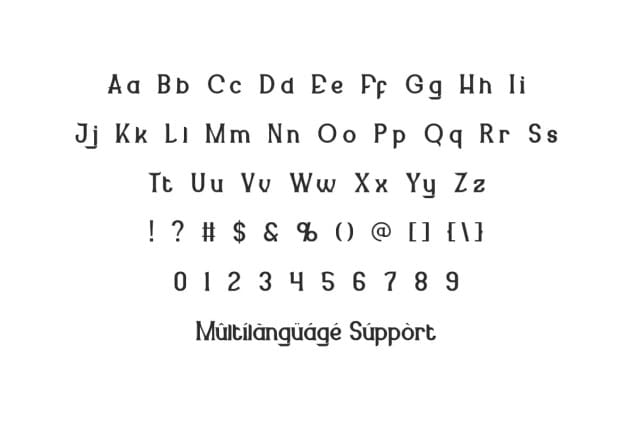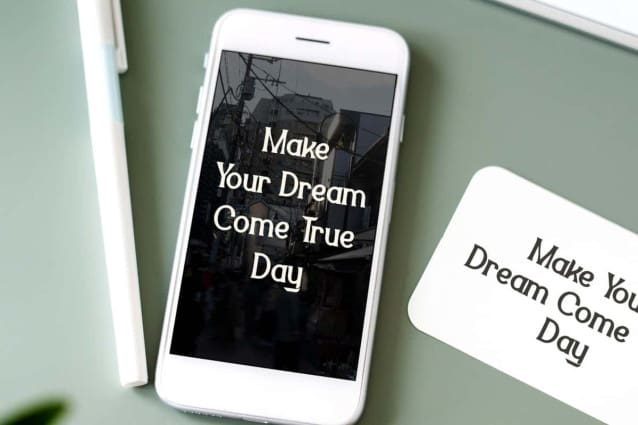
Kebayoran Font
Kebayoran Font is an elegant display font with a classic touch, its distinctive letterforms with balanced curves and consistency make it ideal for a variety of creative projects, suitable for advertisement board, headlines, logos, magazines, screen print t-shirt, signage, sticker, or anything else. This font includes selected ligatures to enhance its aesthetic appeal.